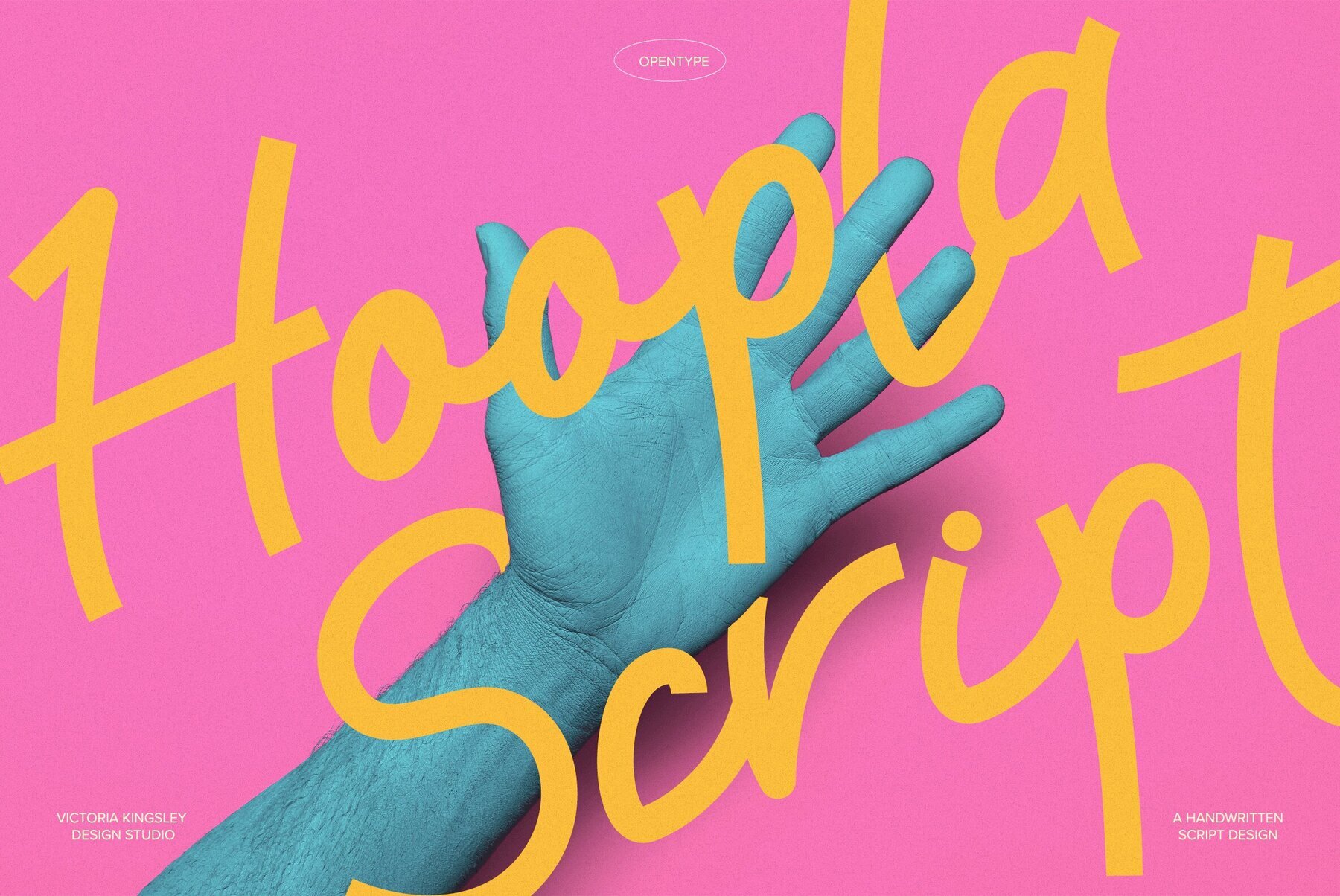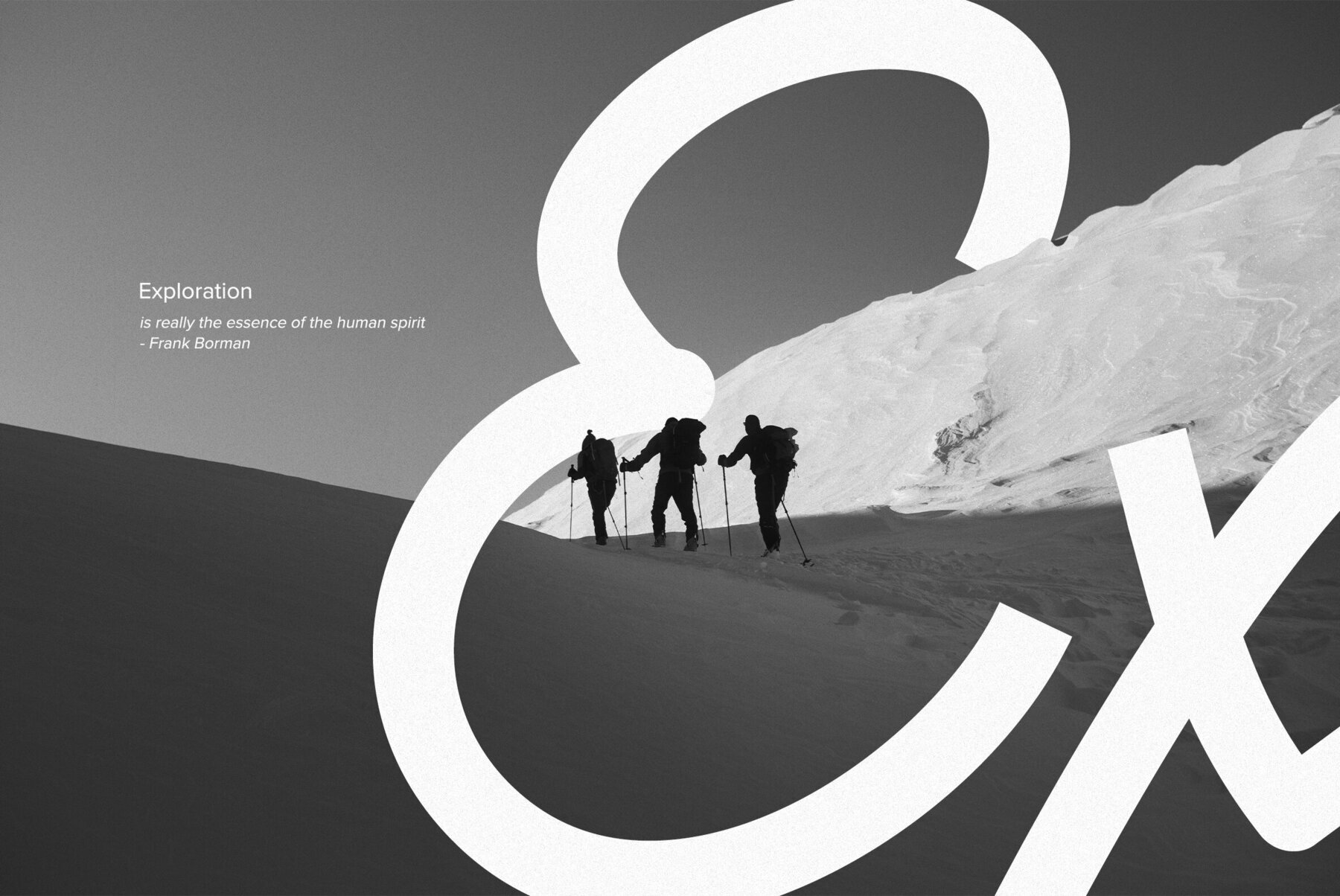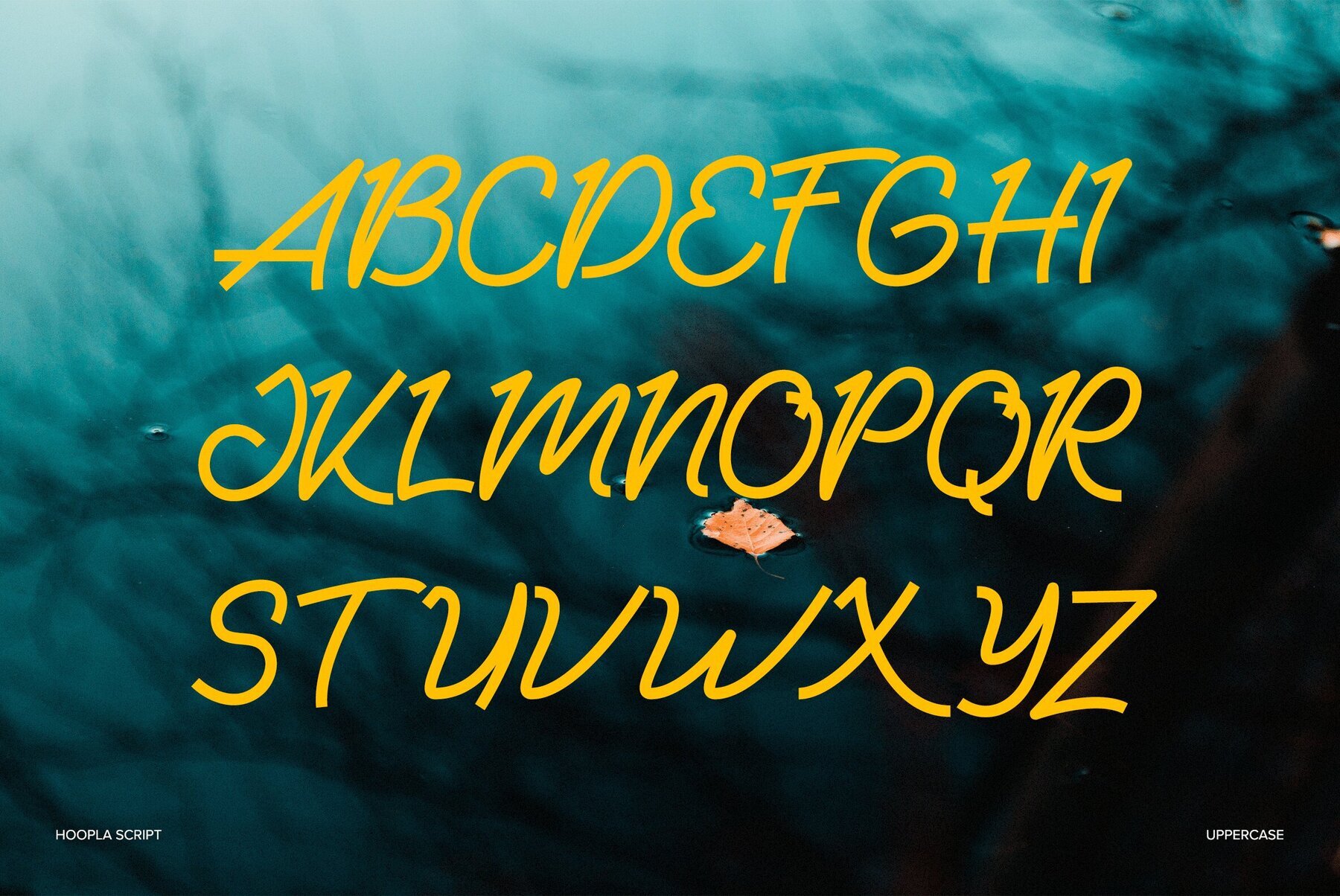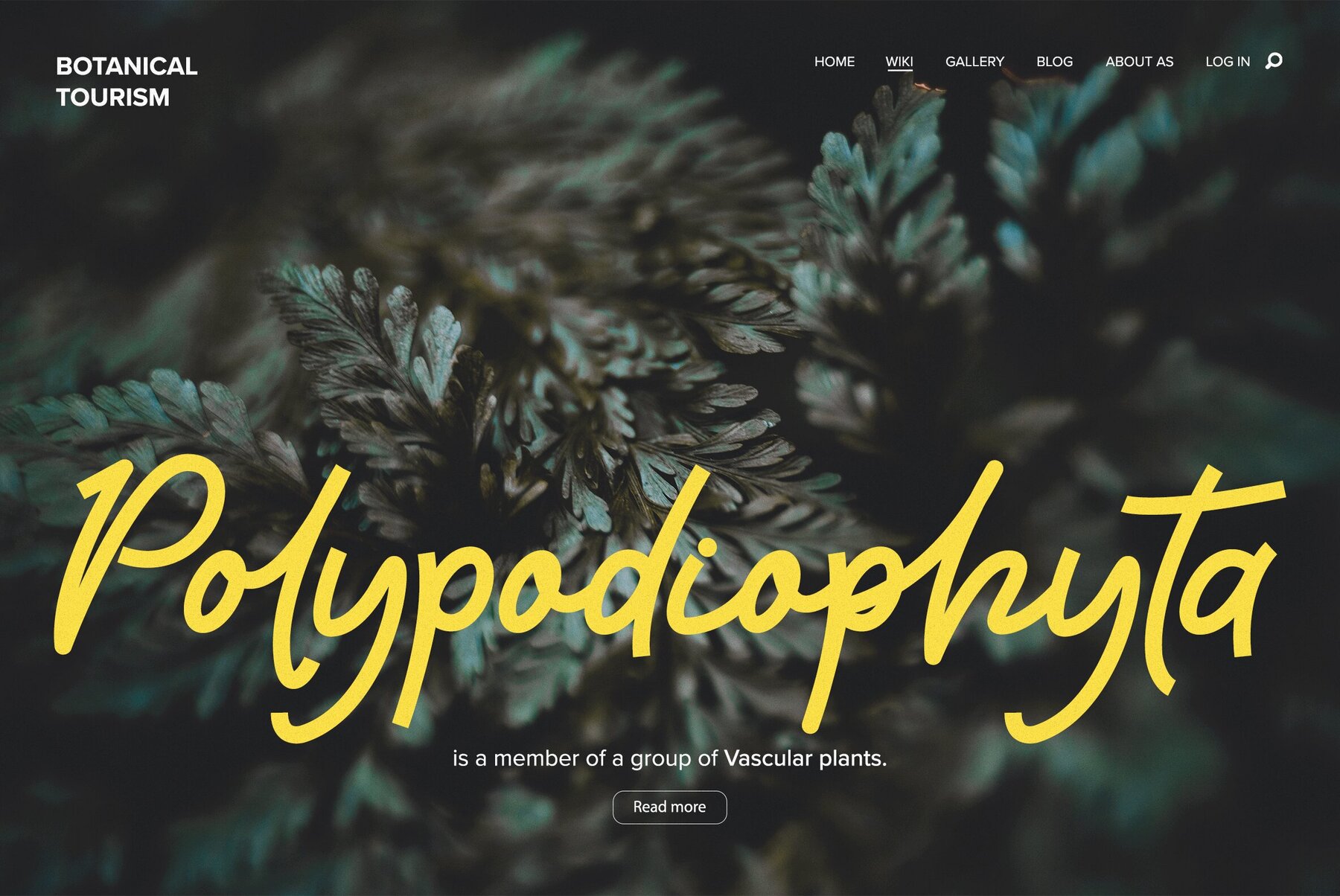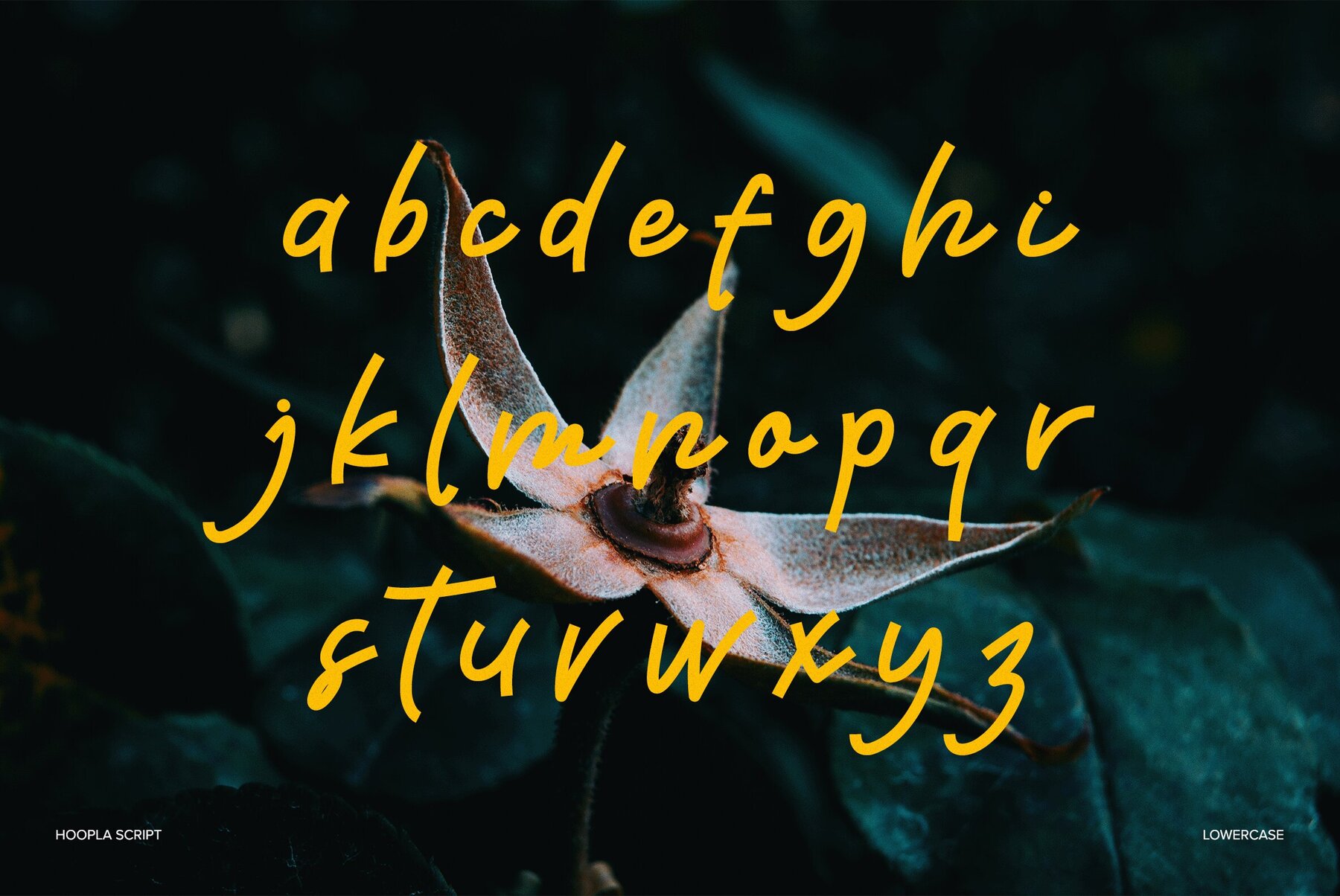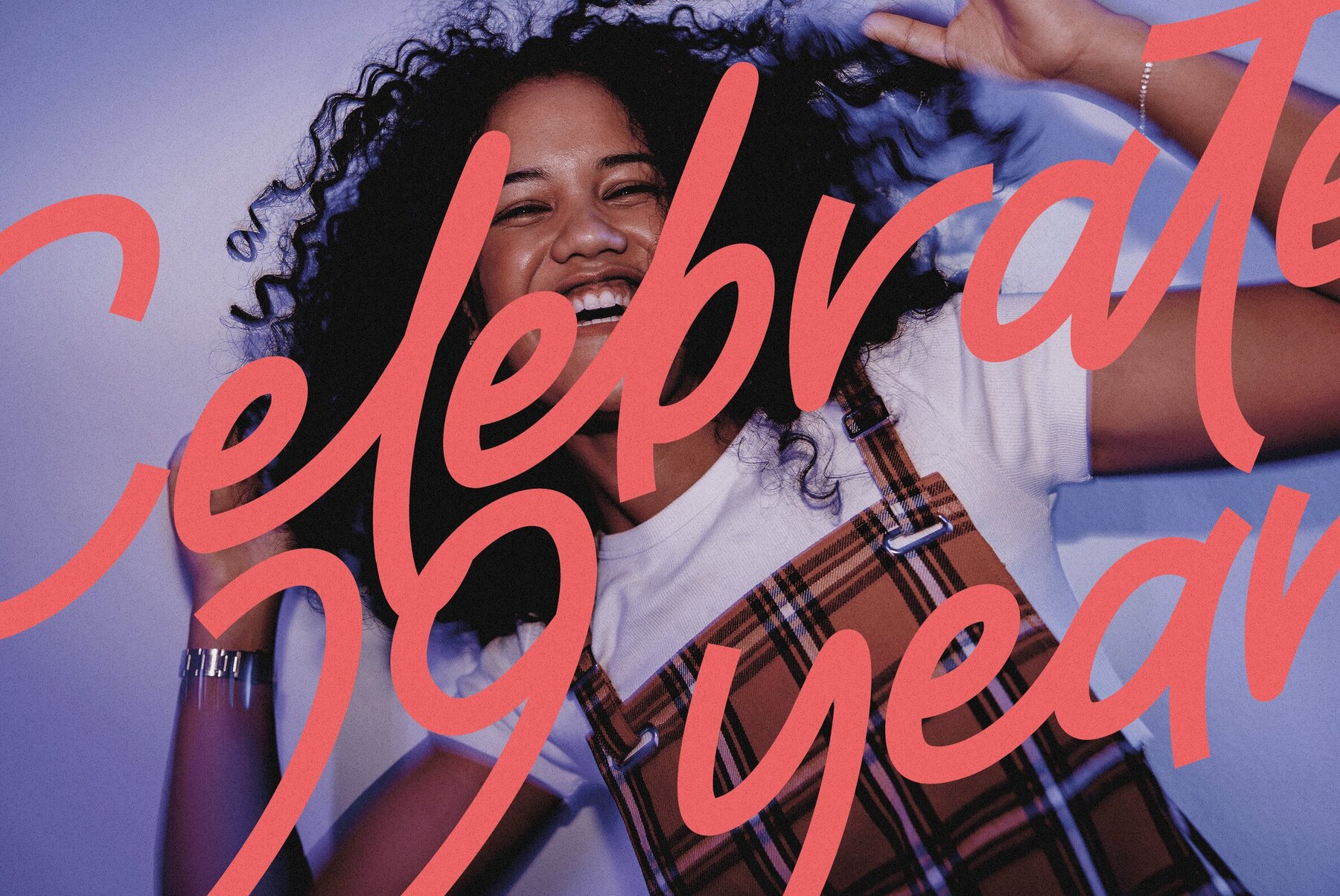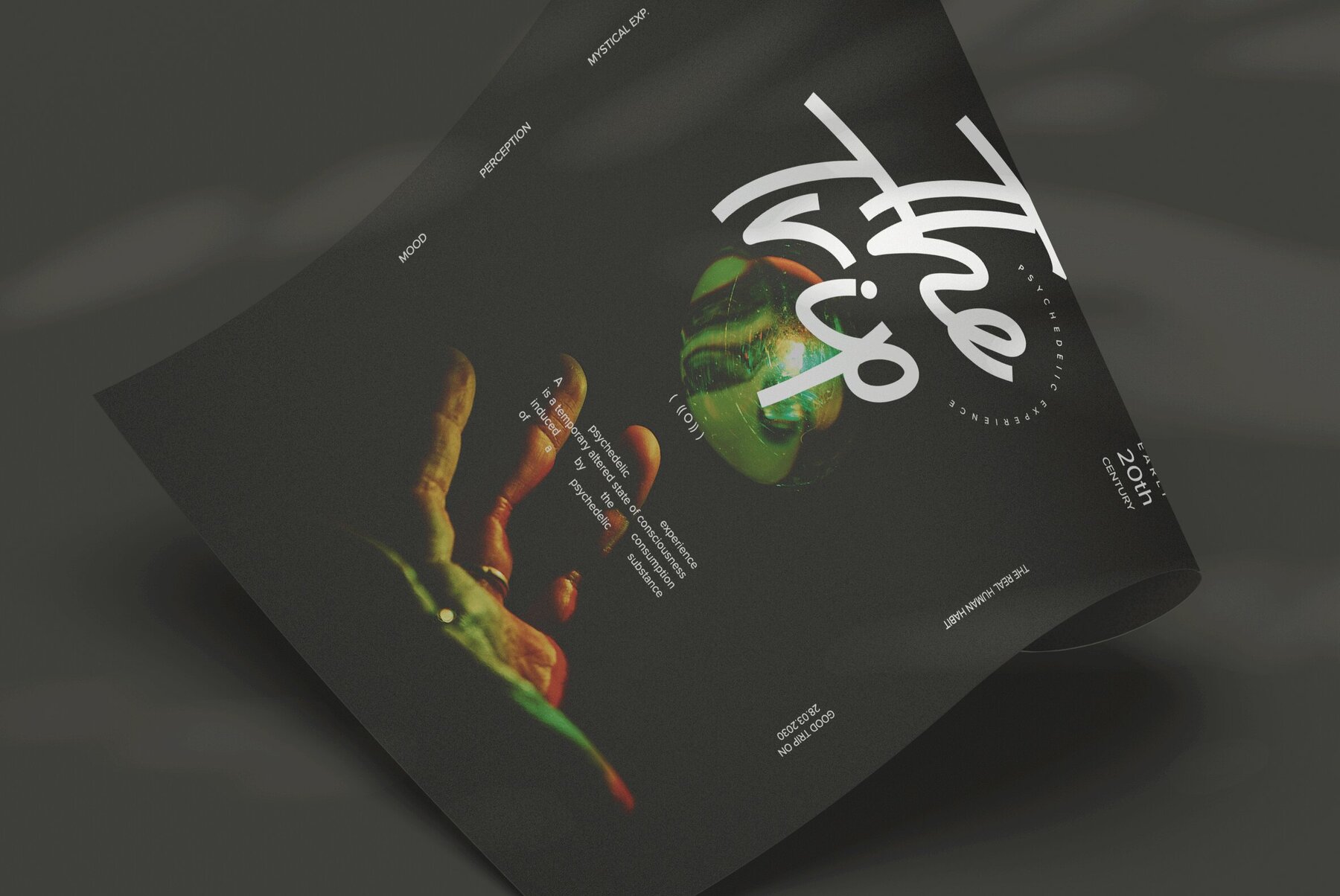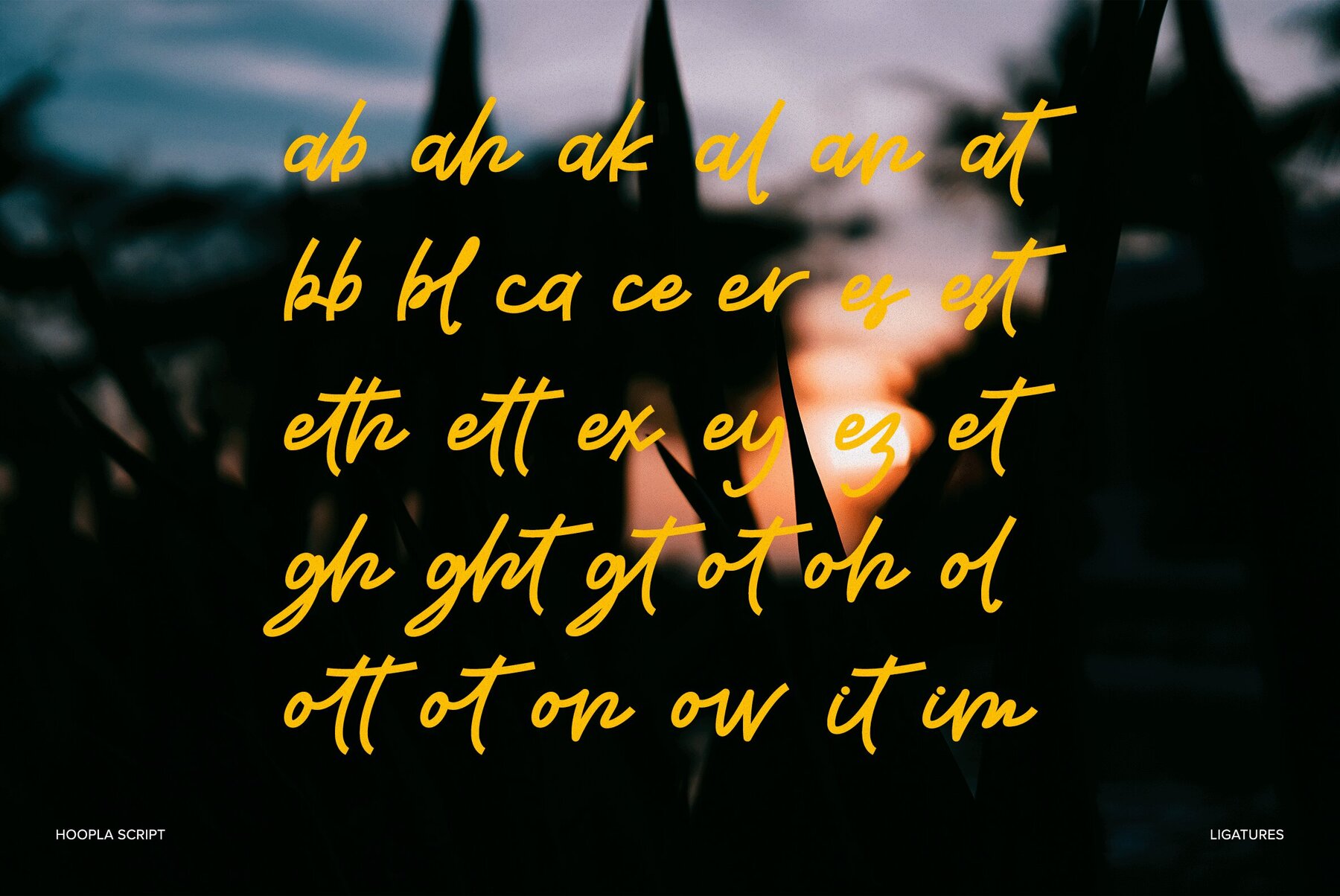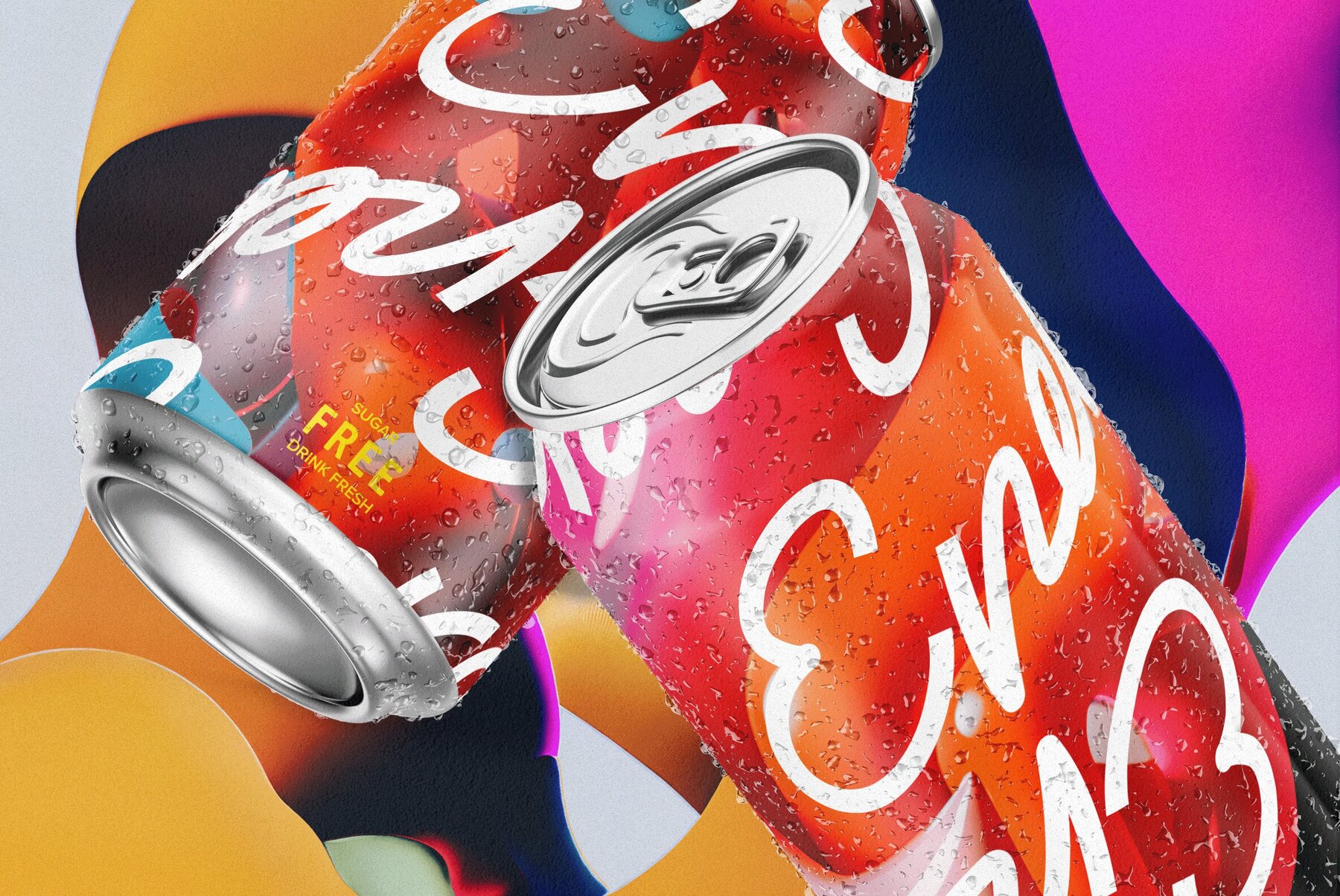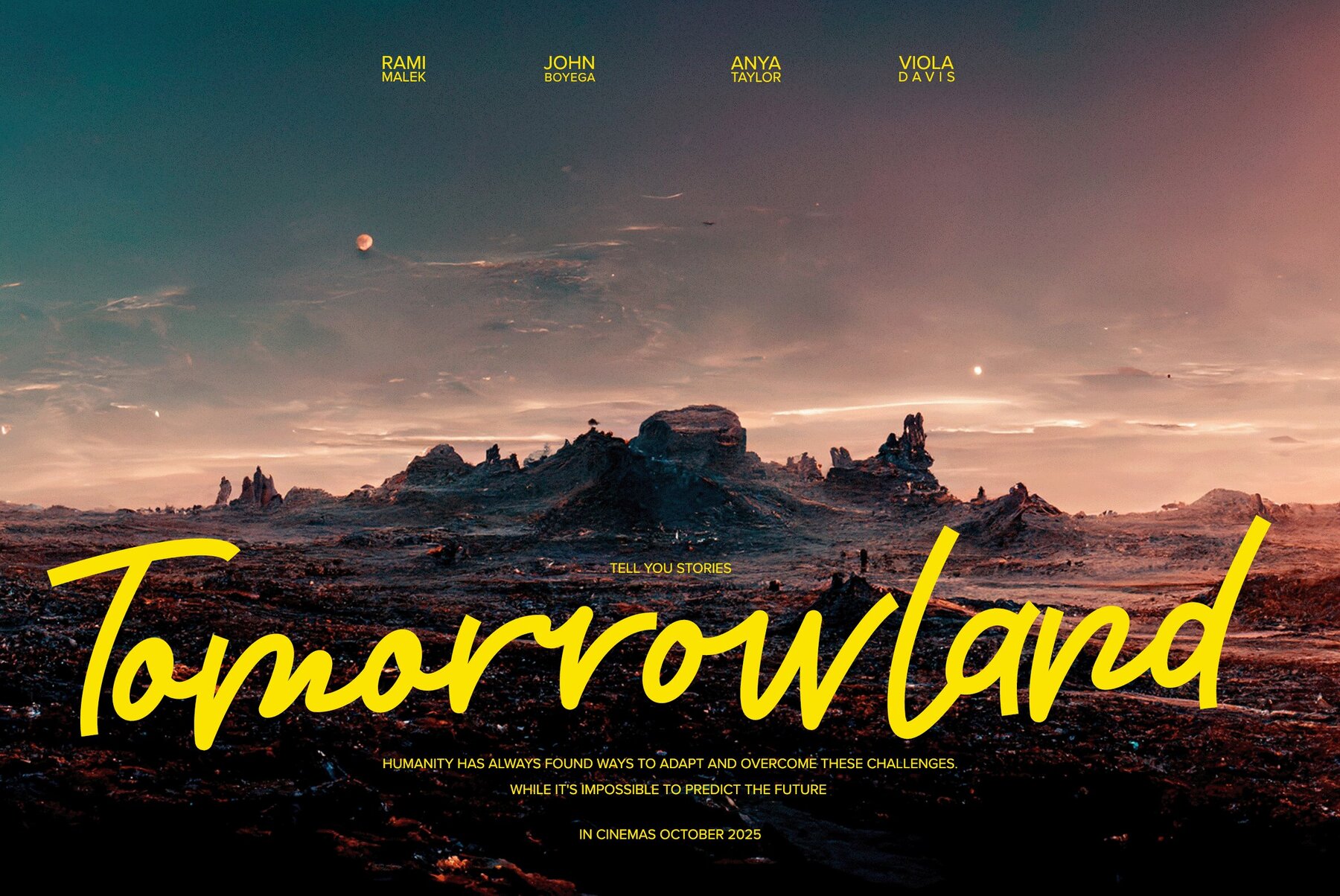
Hoopla Script Font
Hoopla Script
Hoopla Script is a delightfully retro and fresh script font designed by Victoria Kingsley Design Studio. This playful typeface boasts 300 glyphs and OpenType features, making it an ideal choice for social media headlines, reels, and a wide range of graphic design projects. With its unique and lively character, Hoopla Script brings a touch of fun to any design. Add a splash of vintage charm to your creative endeavors with Hoopla Script, a versatile font that captures the essence of a bygone era while remaining relevant for modern design trends. So, get ready to make a statement and stand out with this fabulous font! Don't forget, at YouWorkForThem, we offer instant downloads, cash back rewards, and a 20+ year history of providing design resources for designers like you. Experience hassle-free personal and corporate level font and stock art licensing, along with our independent ownership, as you explore Hoopla Script and other remarkable fonts. Additional products used for slideshow images: